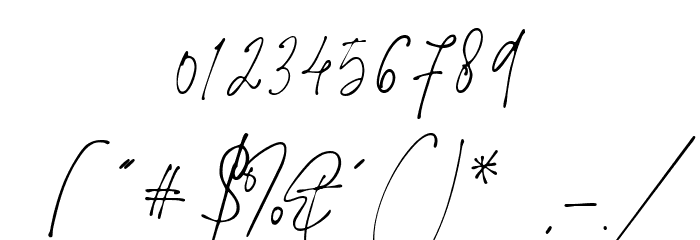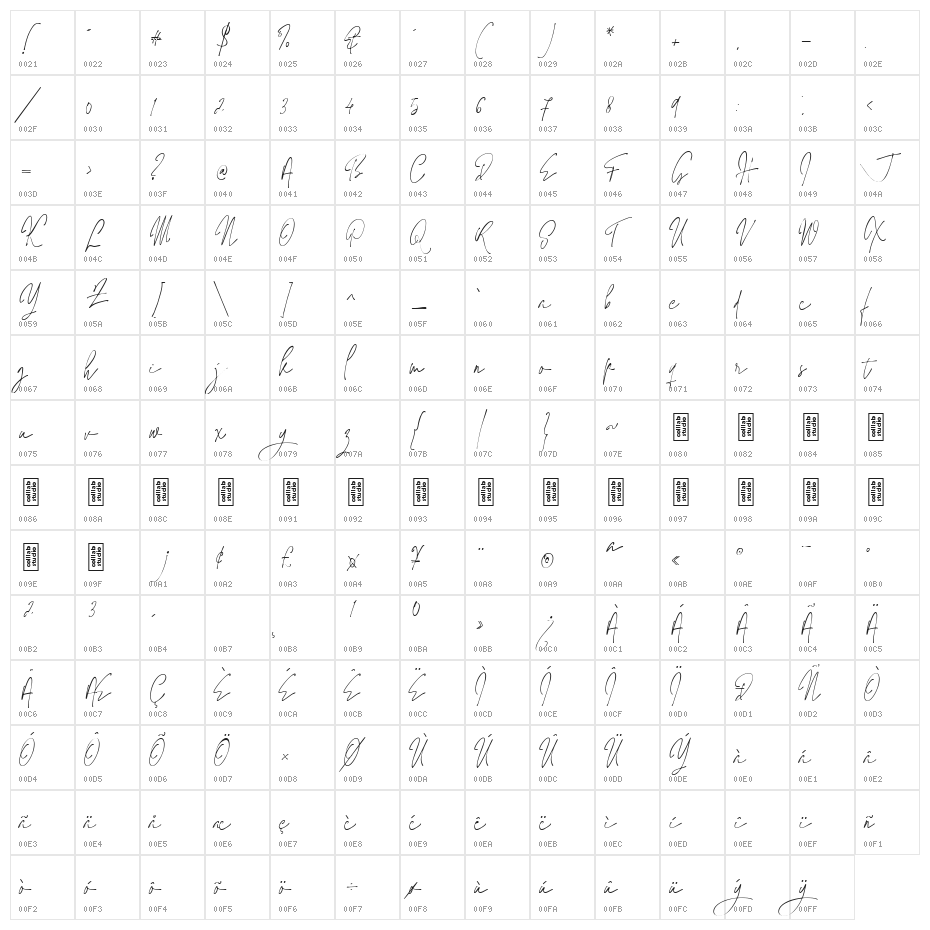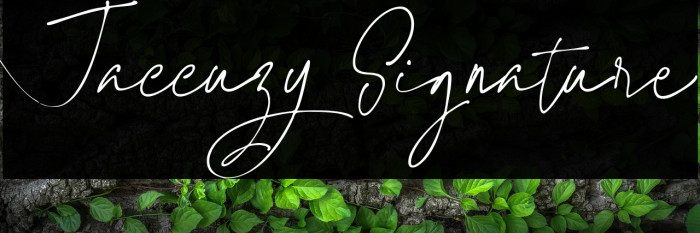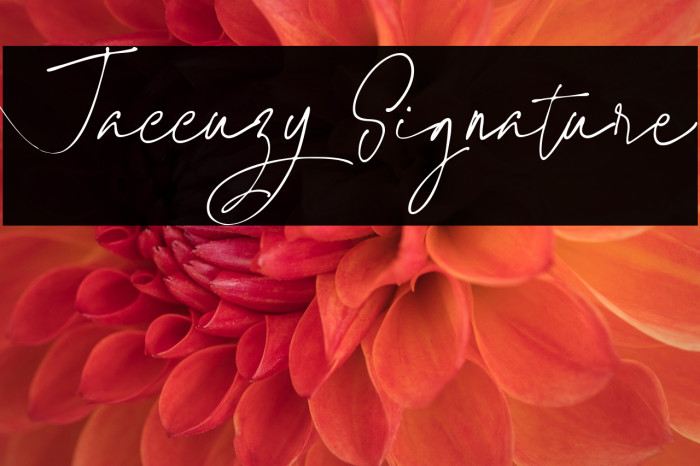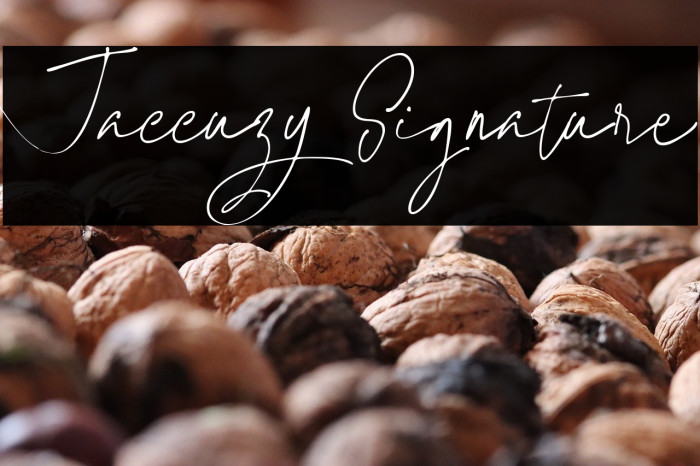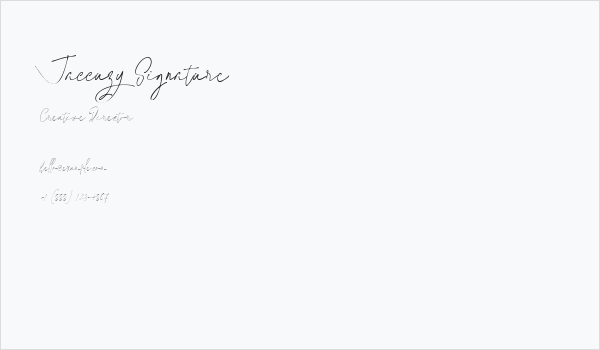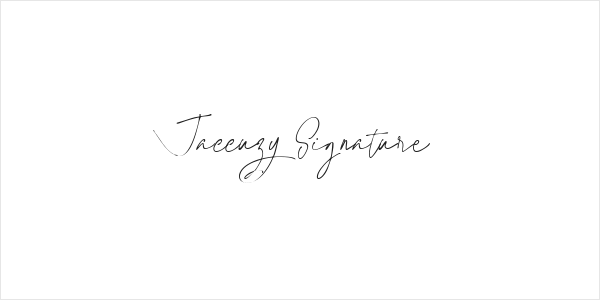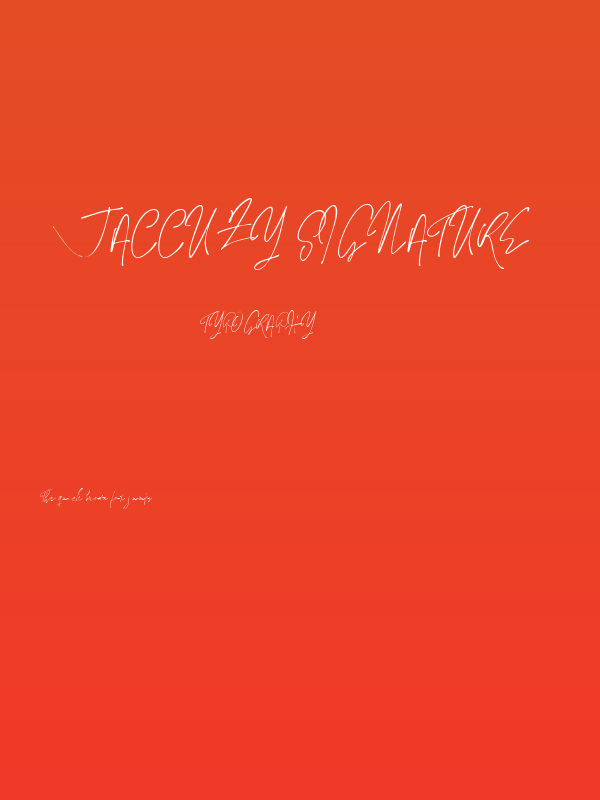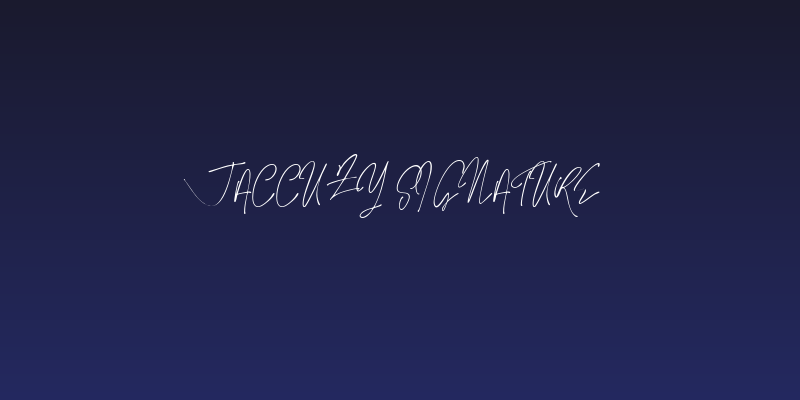
Jaccuzy Signature Font
Jaccuzy Signature Description
This font exudes a sophisticated and elegant handwritten style, characterized by its fluid and continuous strokes. The letters are intricately connected, creating a seamless flow that mimics natural handwriting. The uppercase letters are bold and expressive, while the lowercase letters maintain a delicate and refined appearance. The numerals and special characters are crafted with the same attention to detail, ensuring consistency throughout. This font is perfect for adding a personal touch to any design, making it ideal for invitations, branding, and other creative projects.